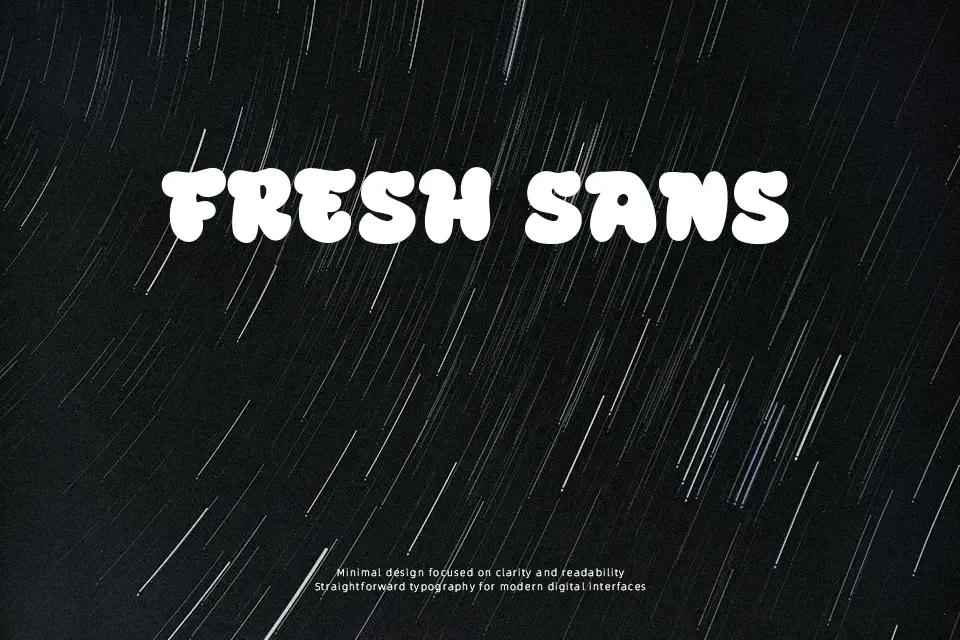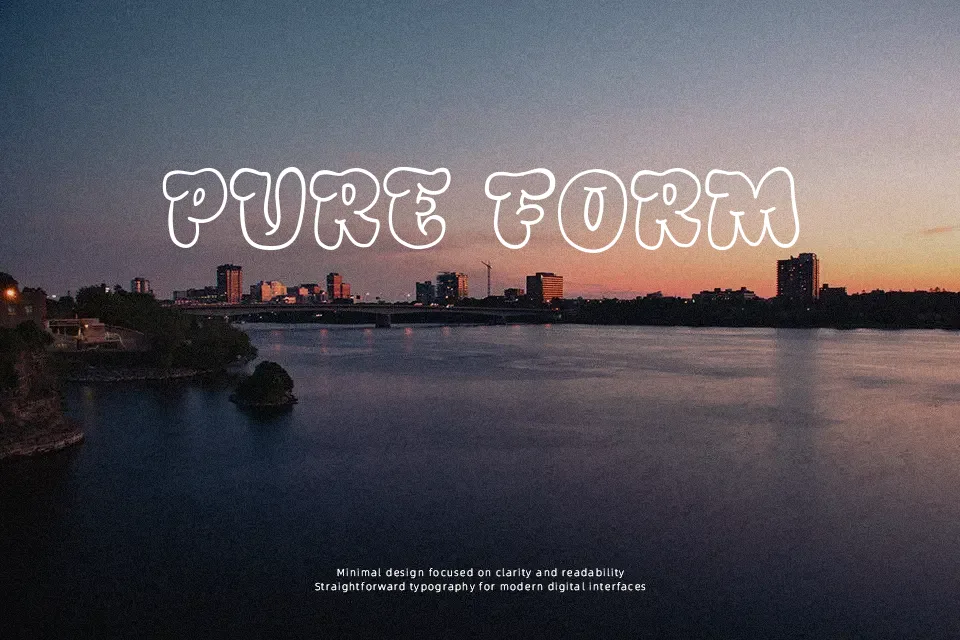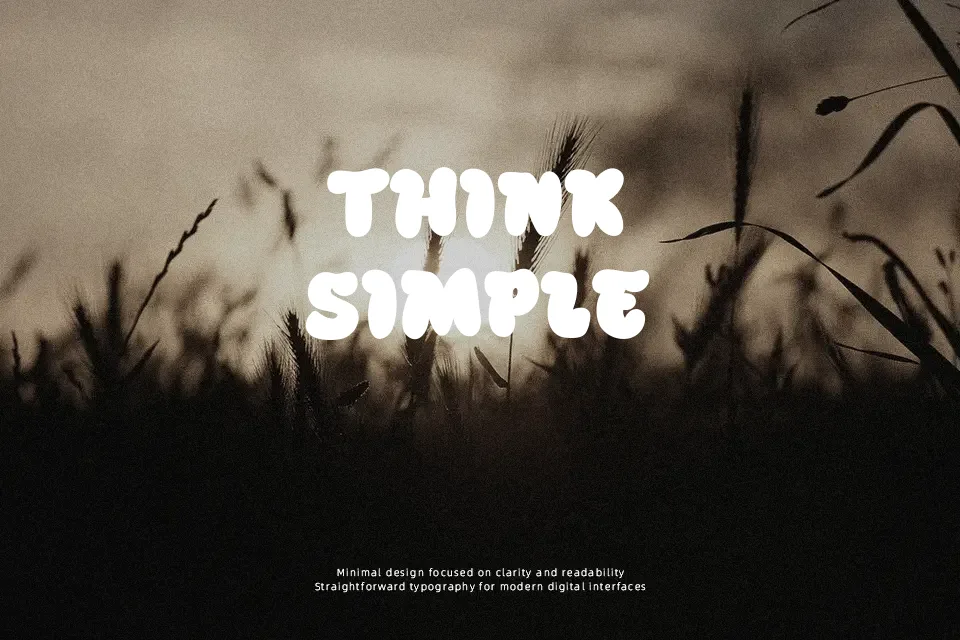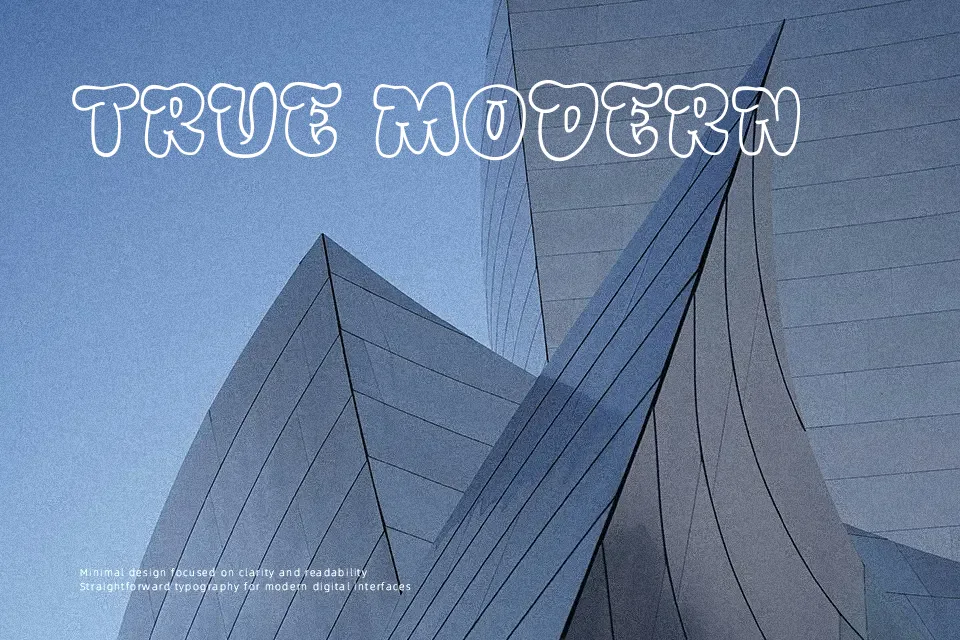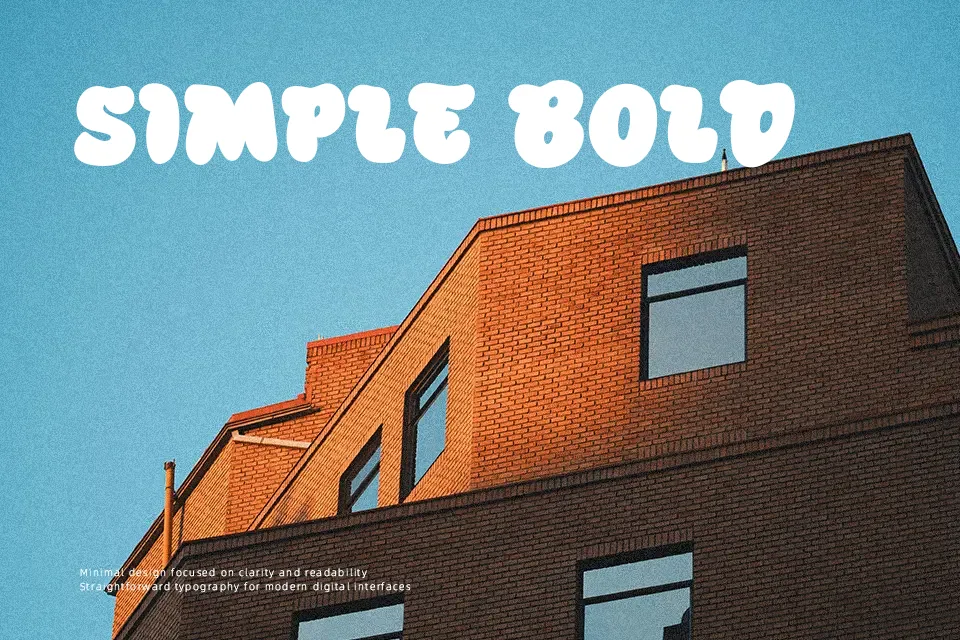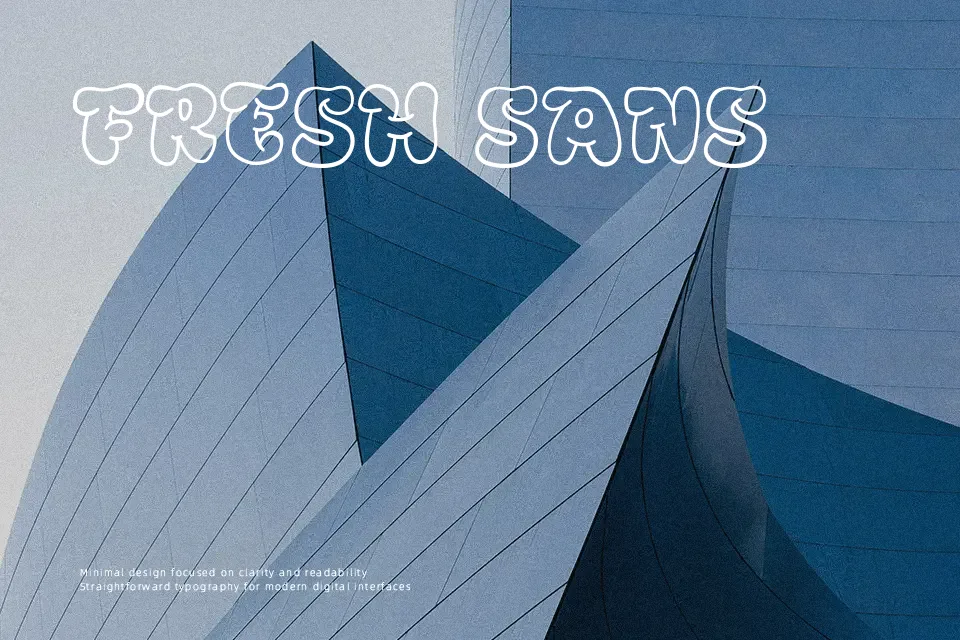
Bulbear Font
Designed by Eko Bimantara
Bulbear leans into thick strokes, soft corners, and generous counters, giving every letter a chunky, bubble-like presence on the page. Spacing is relatively tight, so words form solid blocks of color, which helps headlines stand out but can feel heavy in dense paragraphs. The overall impression is casual, playful, and a bit cartoonish, closer to children’s display lettering than to clean corporate typography. It shines in uses where you only need a few words to speak loudly—product names, snack packaging, game titles, or youth event posters—especially when paired with bright colors and simple layouts. For longer reading or serious editorial work, though, the weight and personality can quickly become tiring, so it is better kept as a supporting display voice rather than a workhorse text font.
Kids product logos and wordmarks
Bright, playful poster titles and banners
YouTube thumbnails or streaming overlays aimed at younger audiences
Snack, toy, or game packaging headlines
Long paragraphs or body text layouts
Formal business, legal, or editorial documents
Minimal, ultra-modern tech branding
Very small size captions where details blur
Perfect for branding, headline, and kids, with a bold and cartoon style.